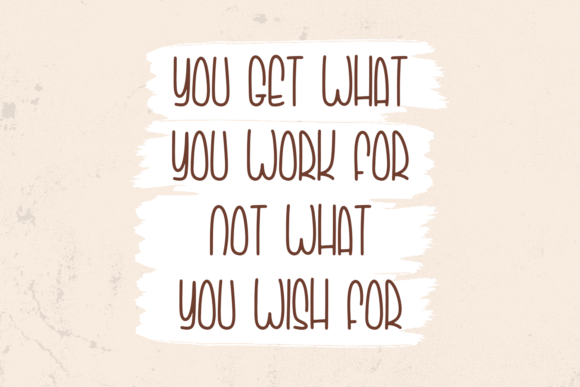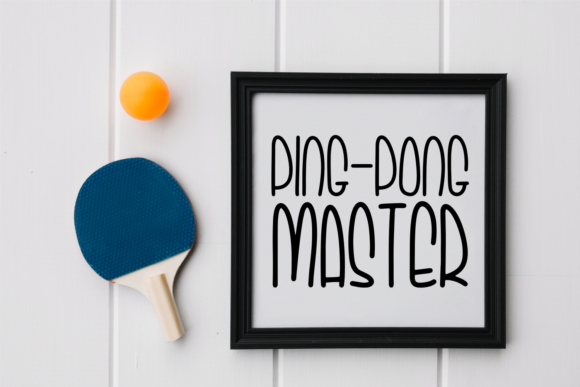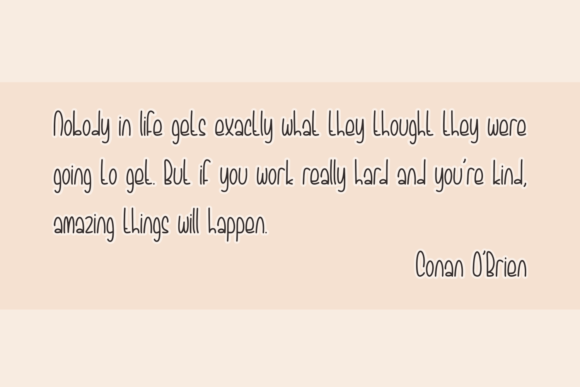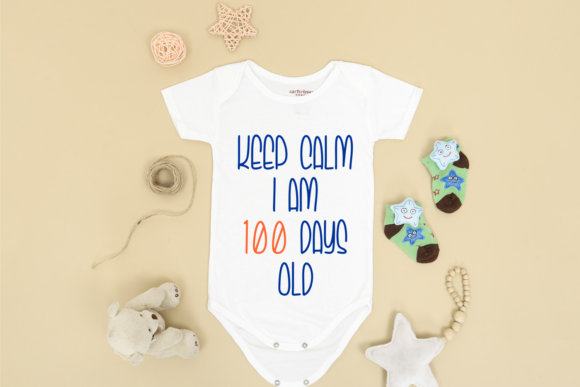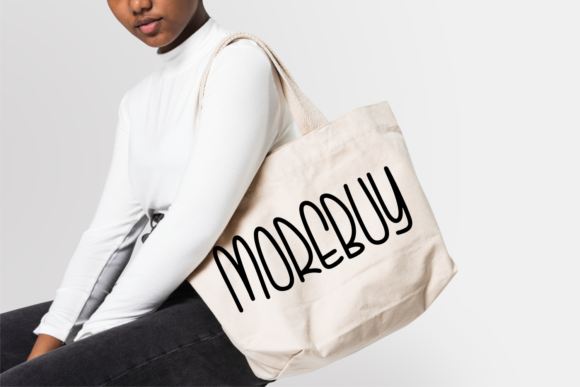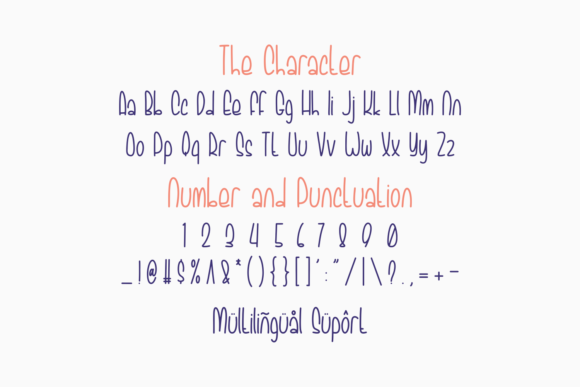
Introduction to Bread Crafter Font
Bread Crafter is a fresh, cool and fun looking display font.
It is suitable for logotype, headline font, in corporate identity, brand identity, apparel industry, poster, music, movie, game, magazine, book, comic, cartoon, YouTube, Instagram, website, or any of your creative design projects .